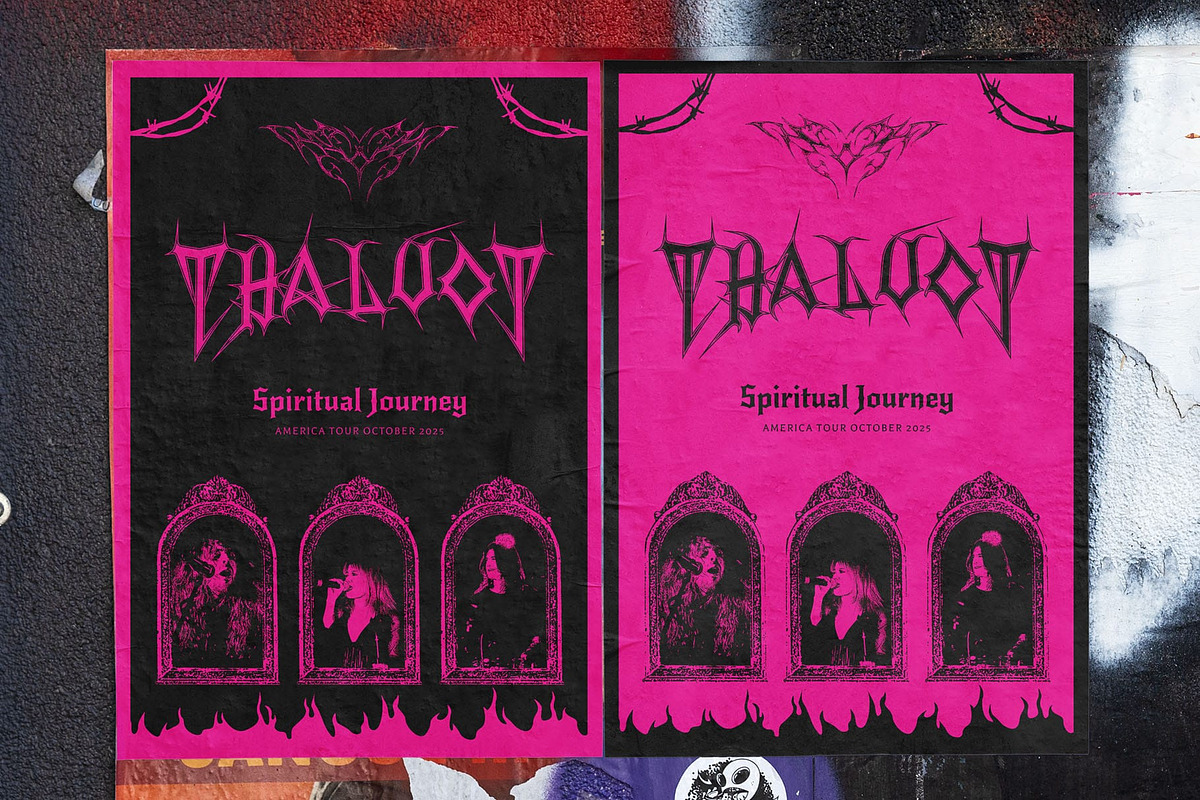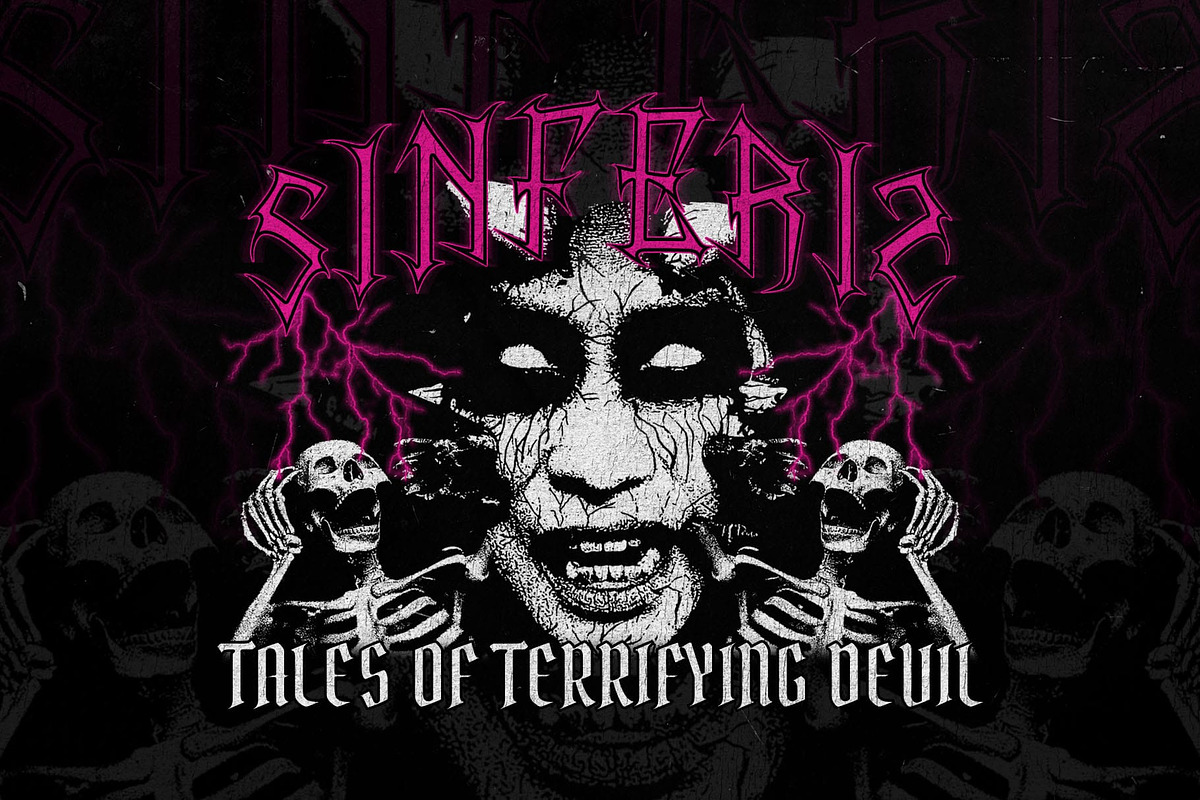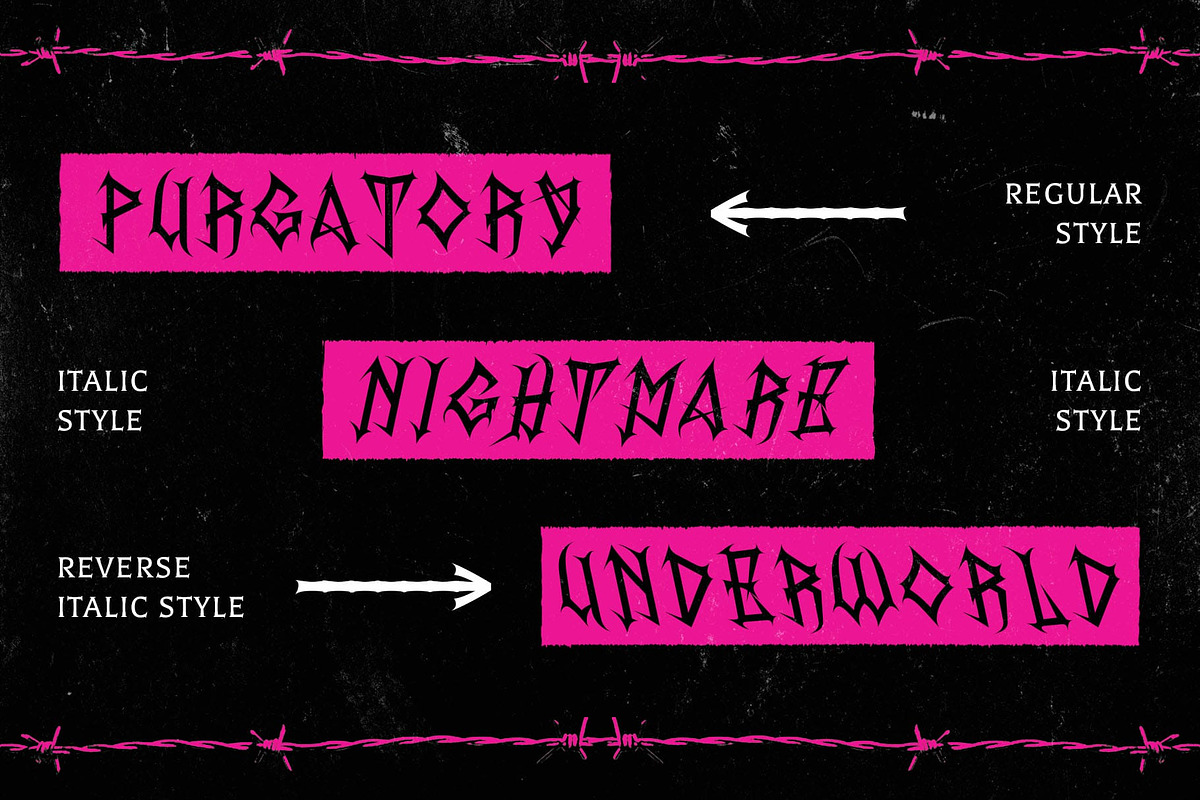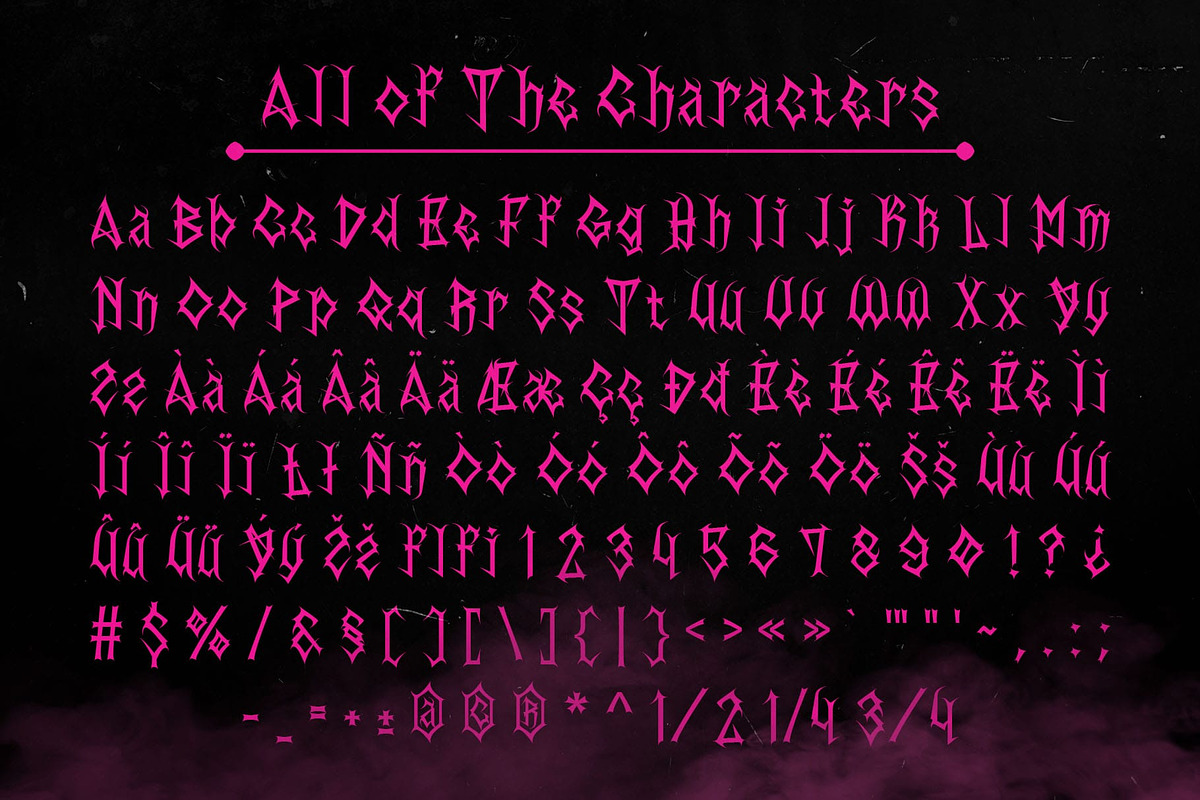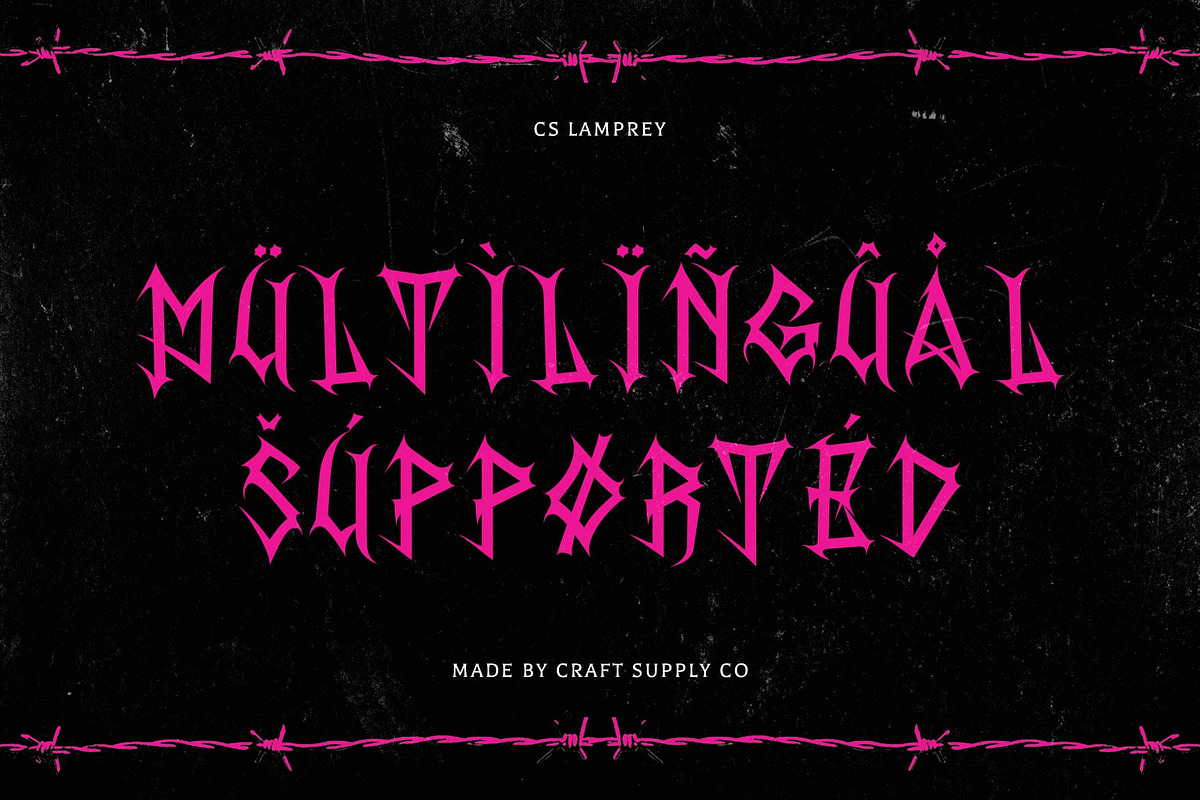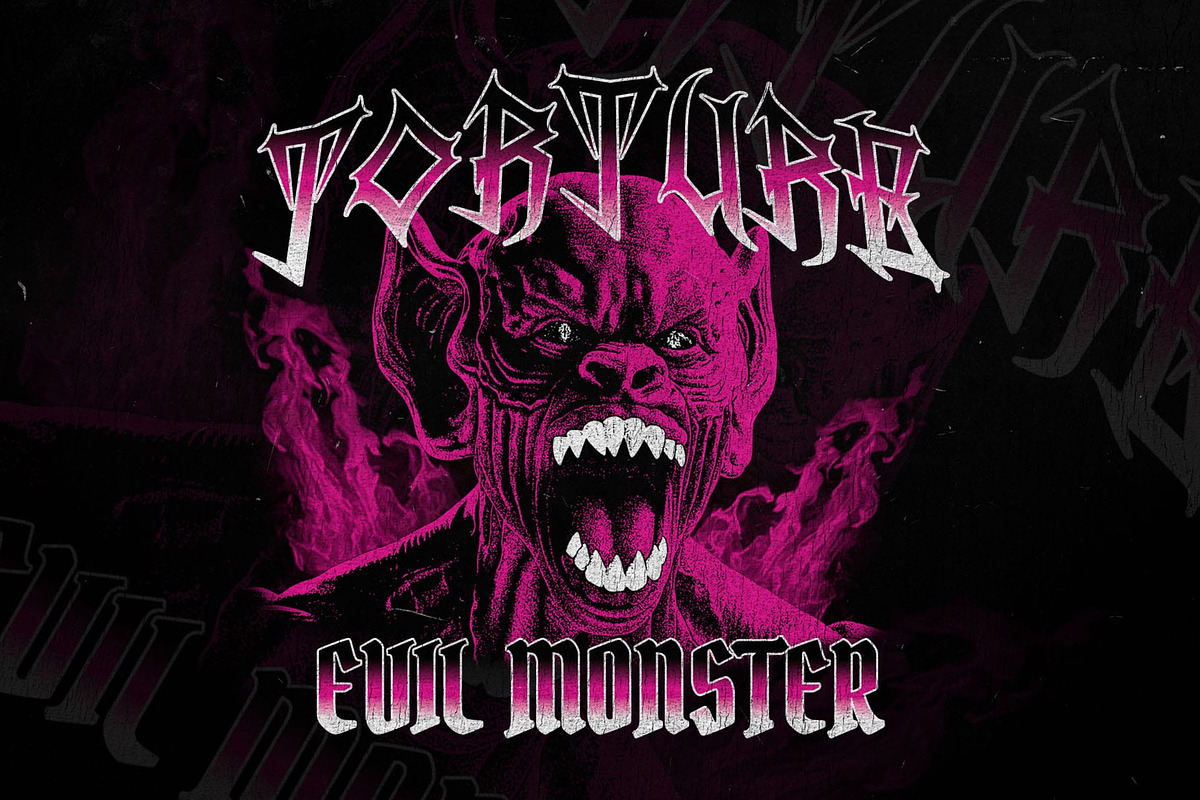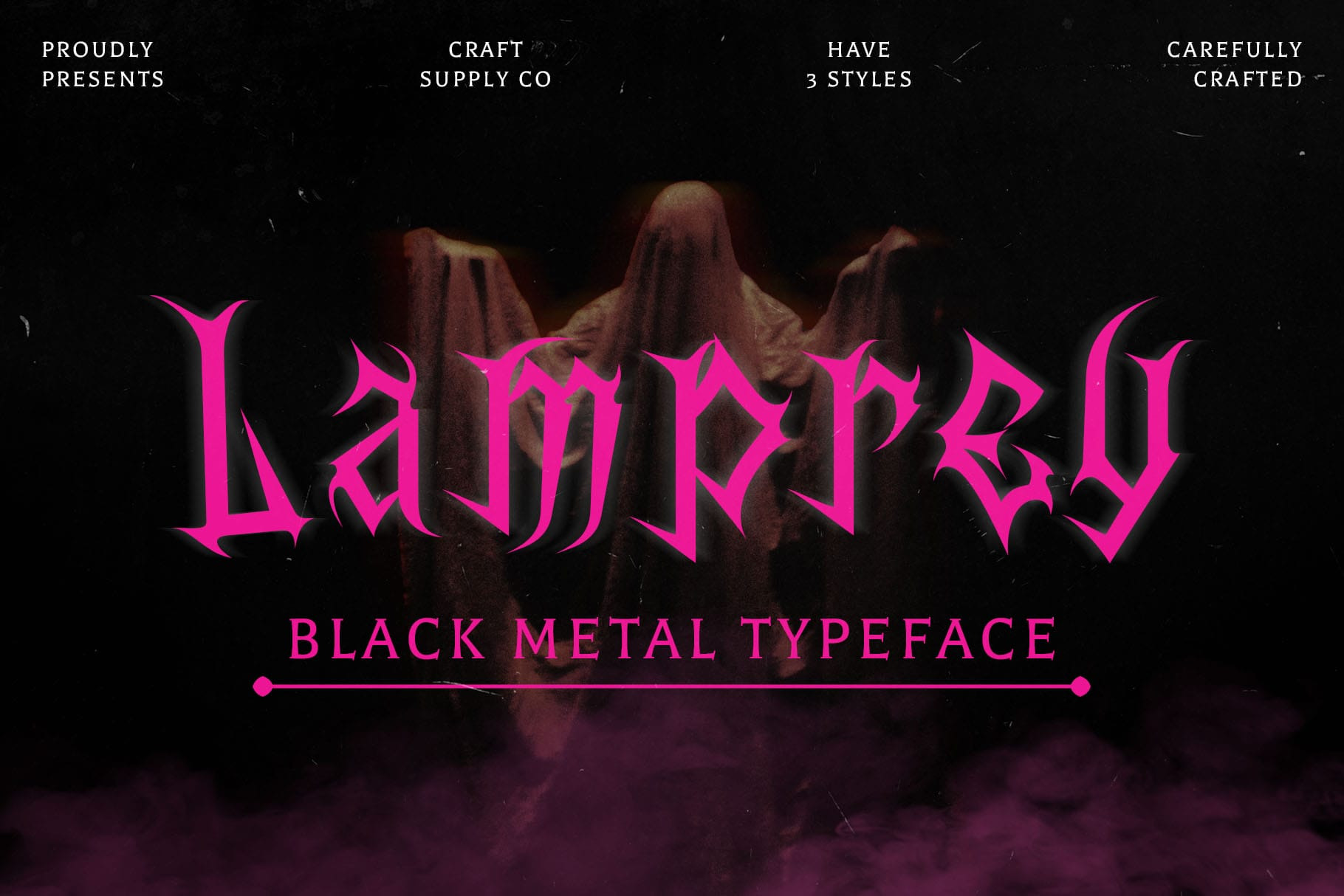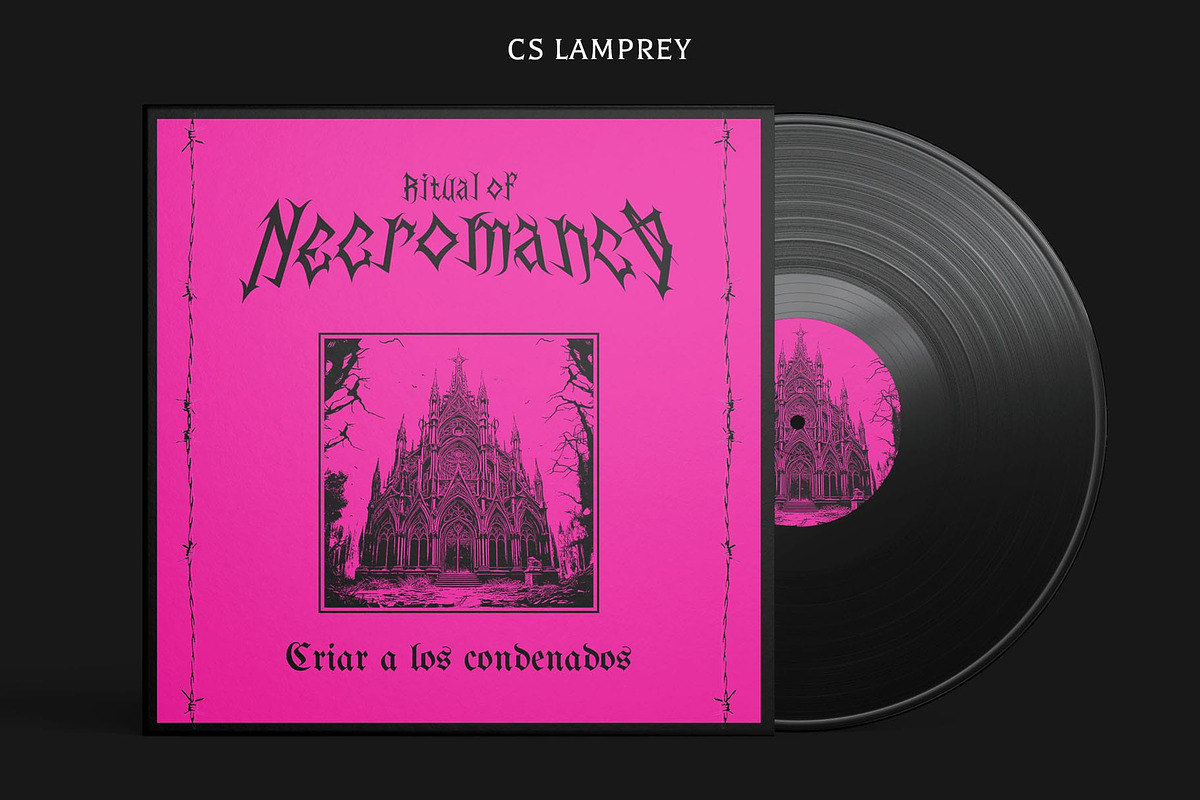
CS Lamprey – Black Metal Font
CS Lamprey – Black Metal Font: Extreme Rebellion in Every Stroke
Sharp, Dark, and Powerful Design CS Lamprey is a black metal display font that embodies the raw, intense energy of the extreme music genre. With sharp, fragmented letterforms and bold gothic styling, this font is designed to evoke mystery, power, and rebellion. The jagged edges and shattered structures give it a sense of aggression and darkness, making it perfect for projects that demand a bold, striking presence.
Fragmented and Gothic Aesthetic Featuring shattered letterforms and gothic design elements, CS Lamprey embraces the fragmented, chaotic style typical of black metal culture. The font’s design reflects both the anger and intensity of underground music genres like black metal, death metal, and alternative, giving your designs an unmistakable sense of attitude and power.
Ideal for Music and Alternative Culture This font is the perfect fit for music album covers, t-shirt designs, and posters that need to communicate rebellion, strength, and an alternative lifestyle. Whether you’re representing the black metal scene, showcasing death metal aesthetics, or creating designs that capture the underground culture, CS Lamprey brings unmatched intensity and impact to your project.